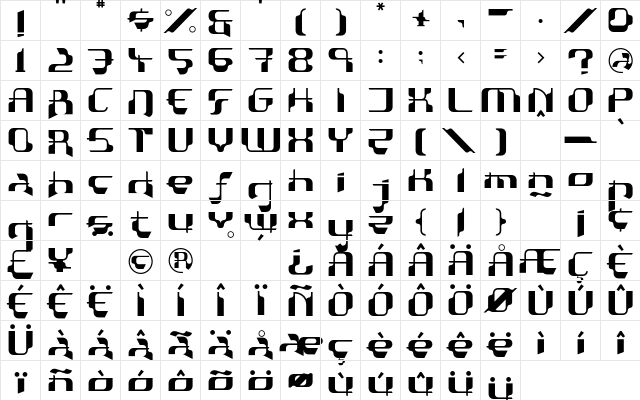
Hyperion Regular
Design Context for Hyperion Typeface
Hyperion is a composed and adaptable typeface that performs quietly and consistently across a wide range of design contexts.